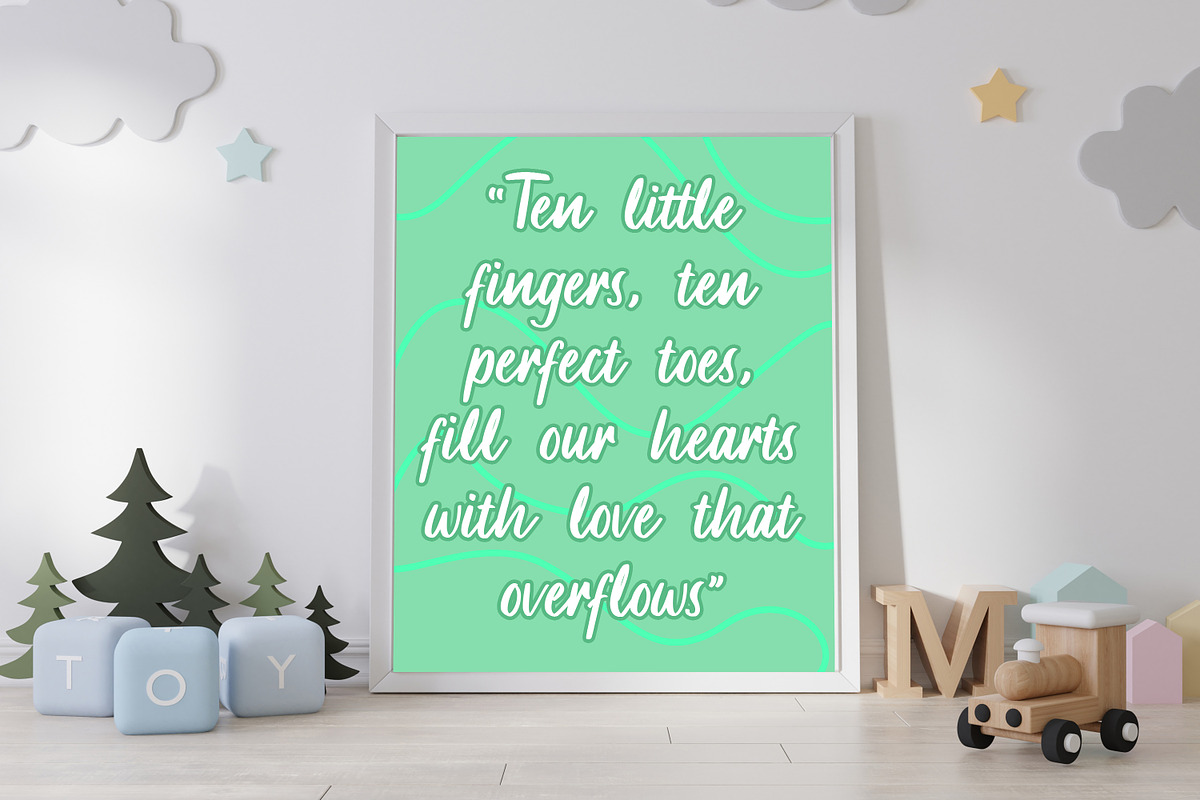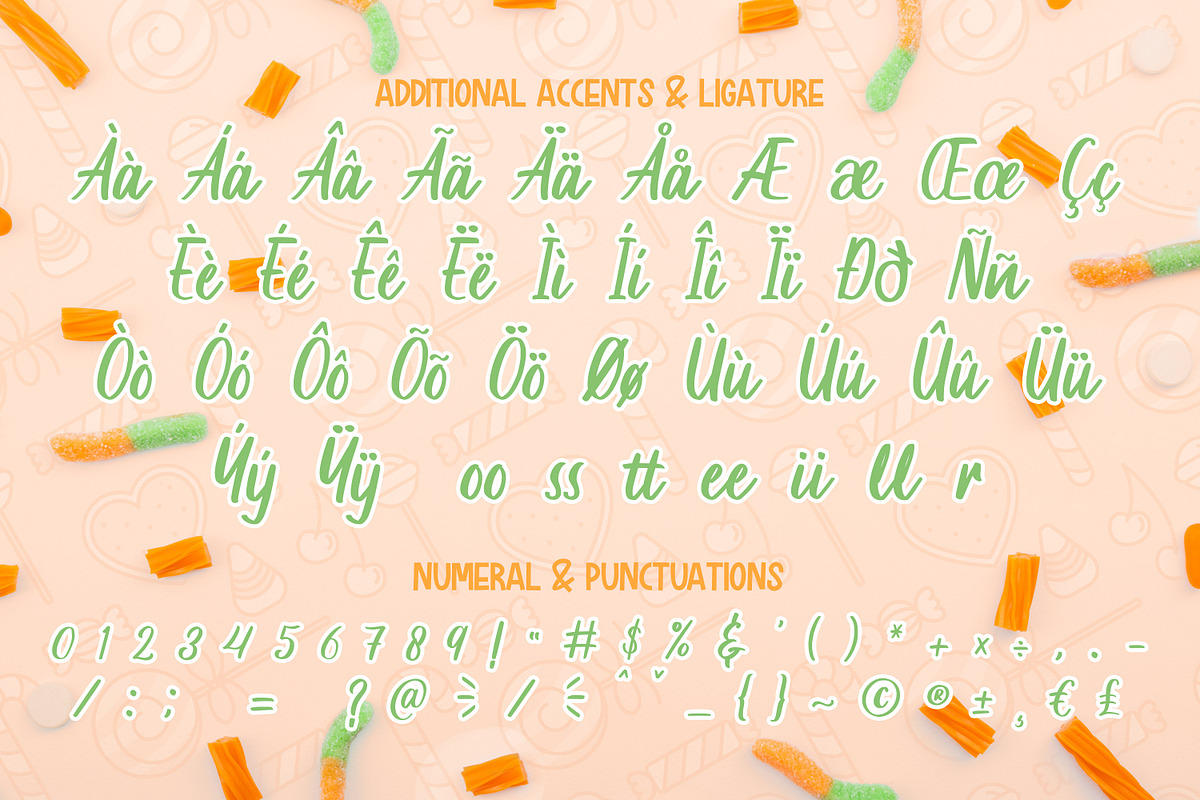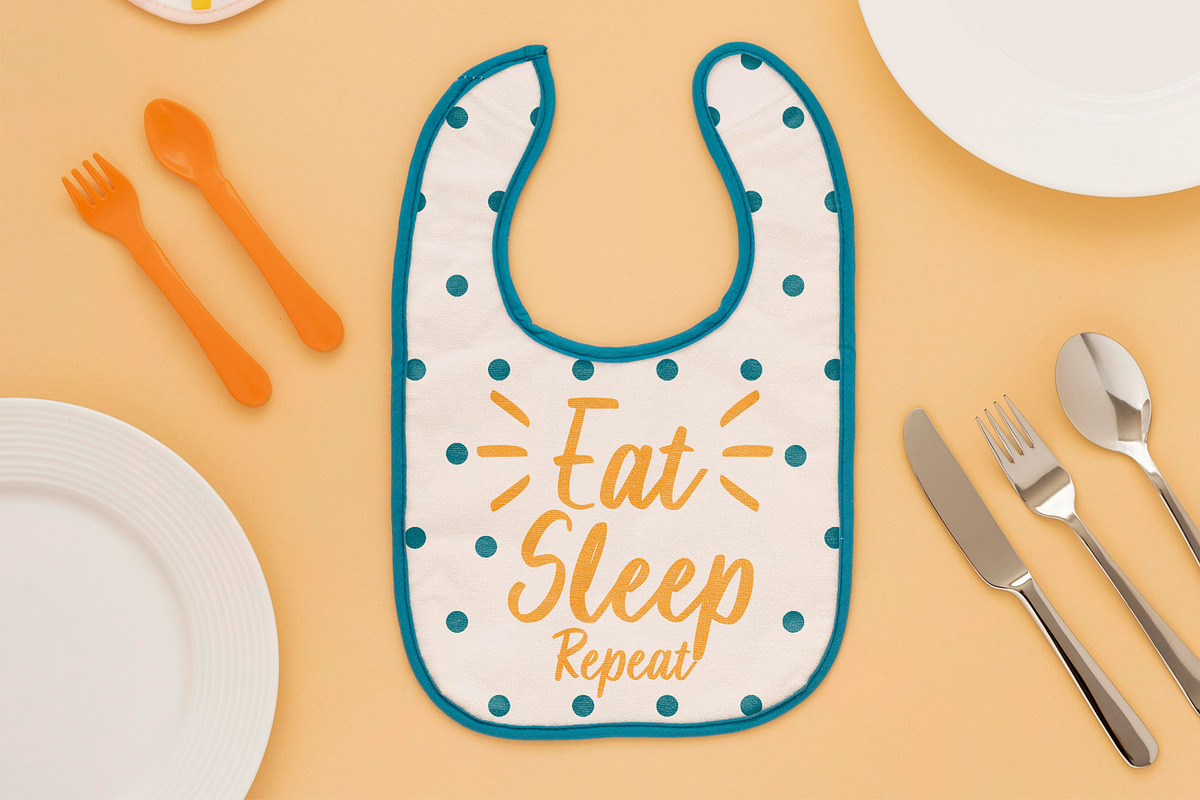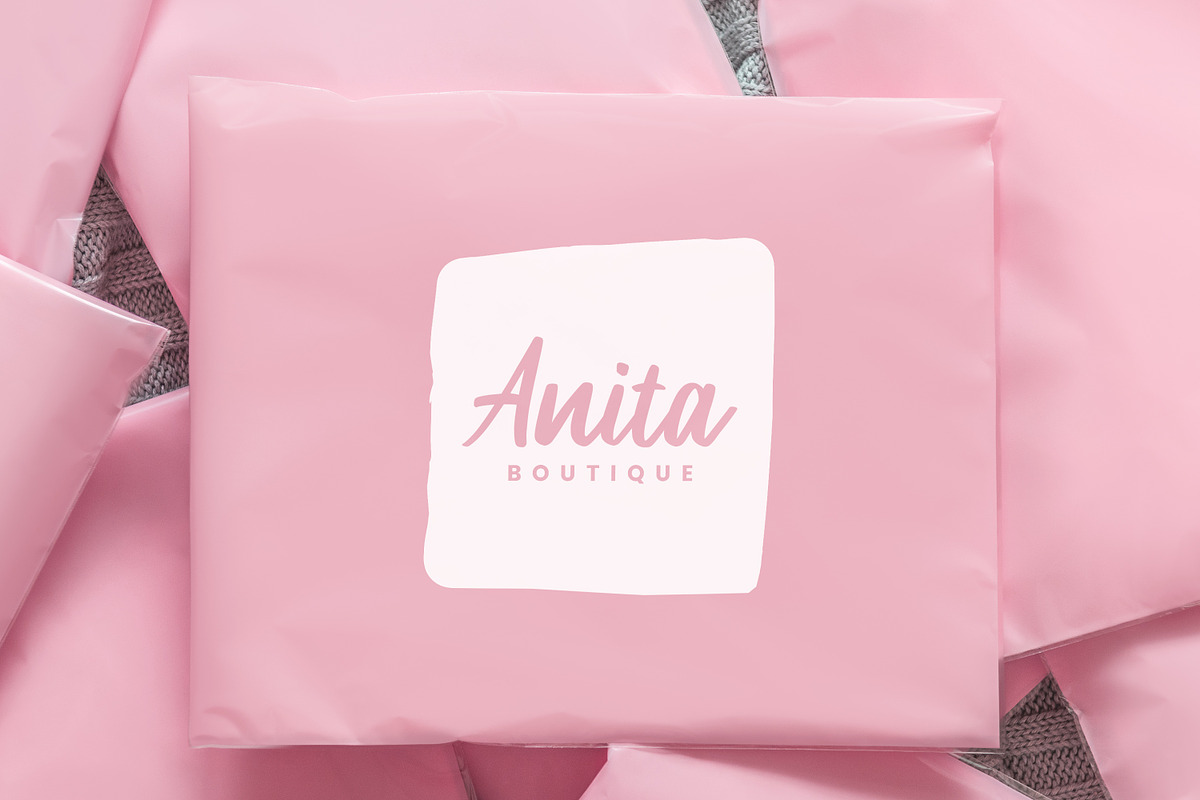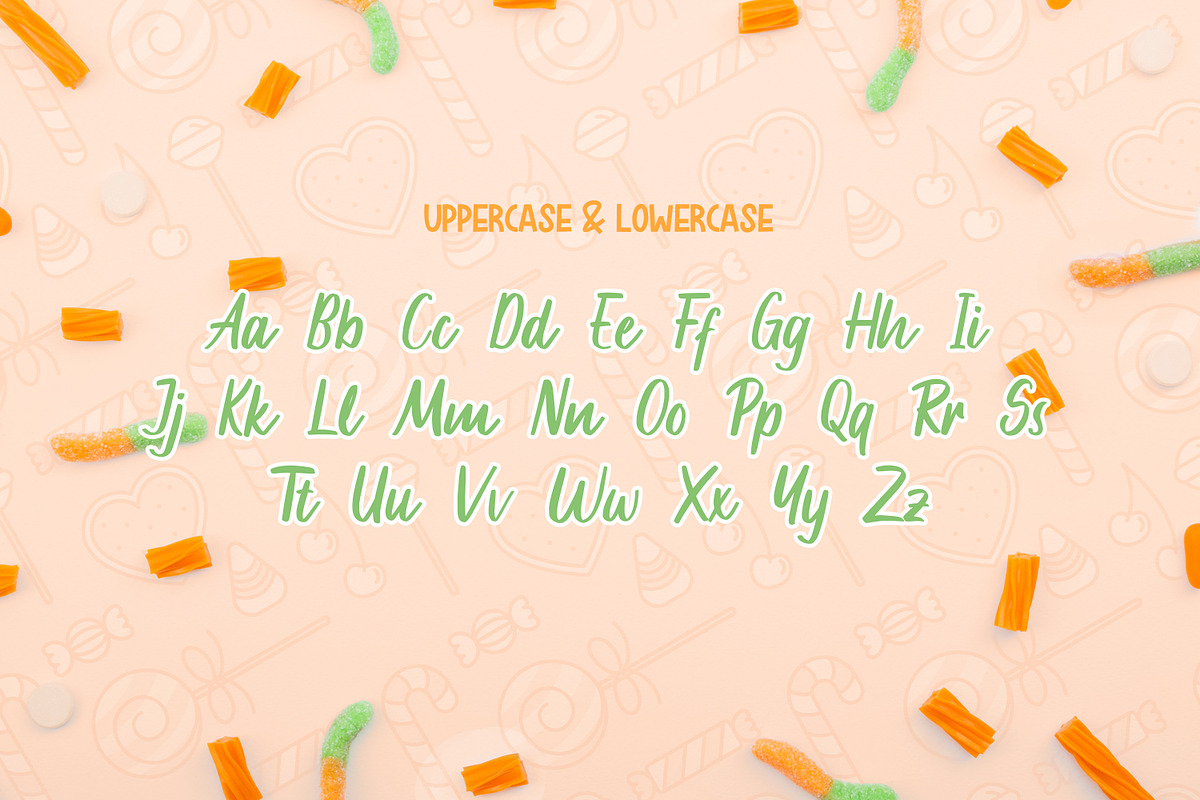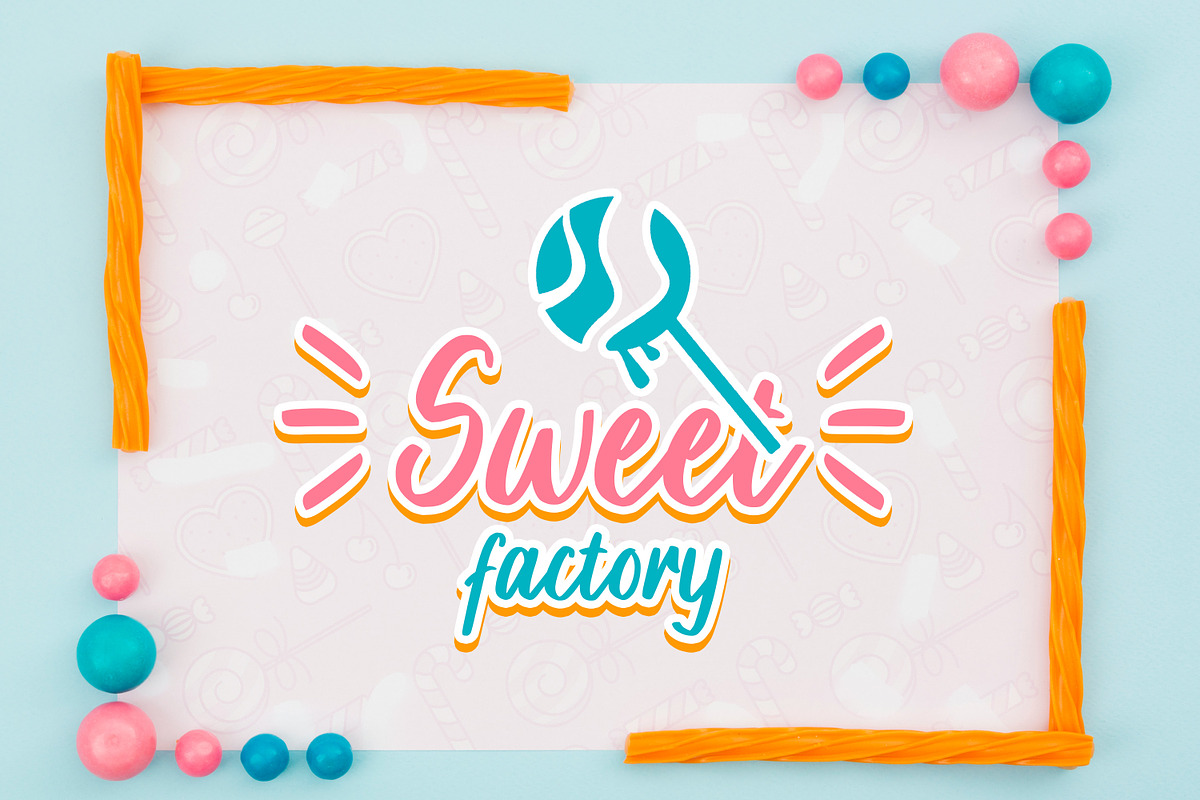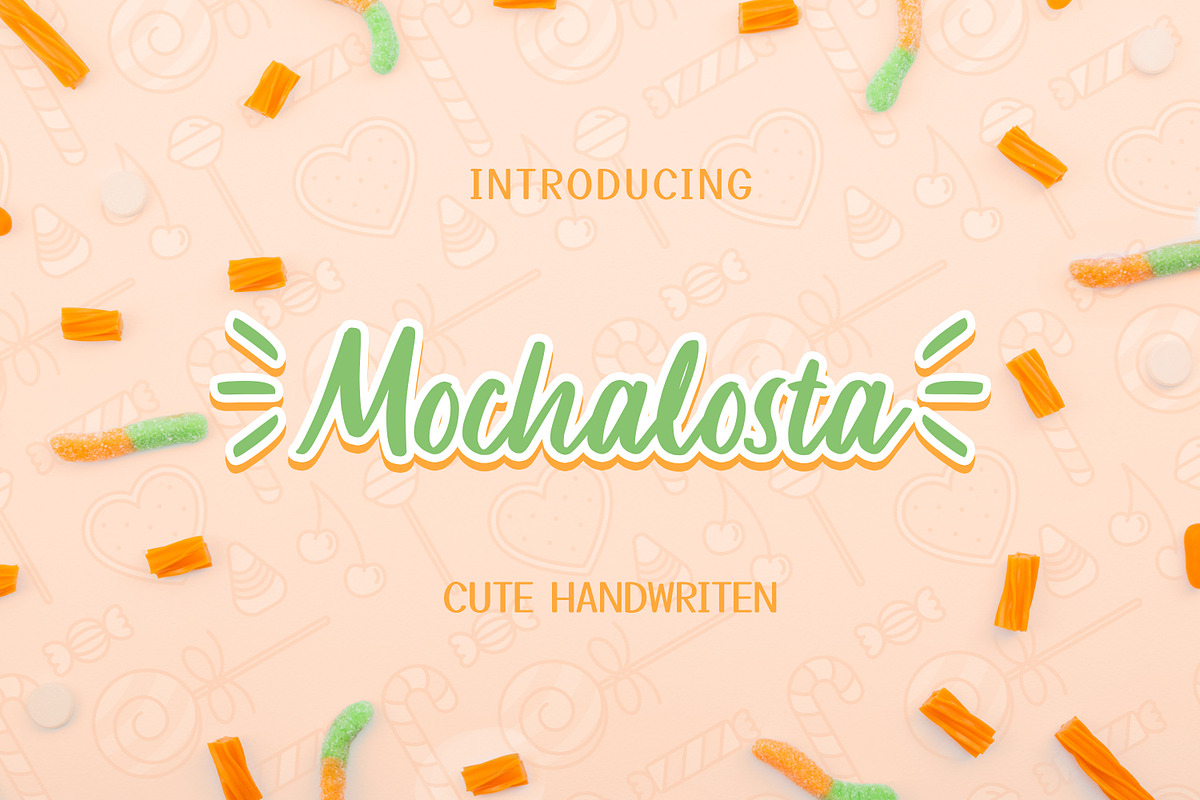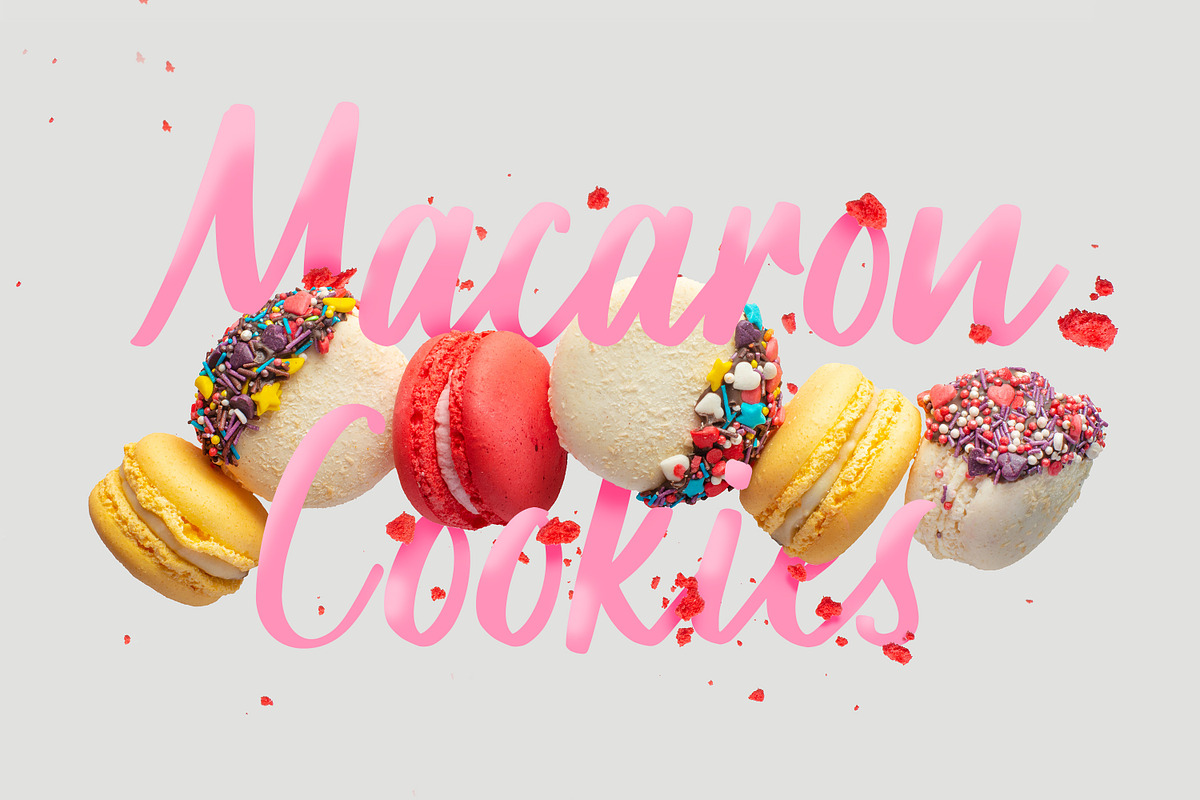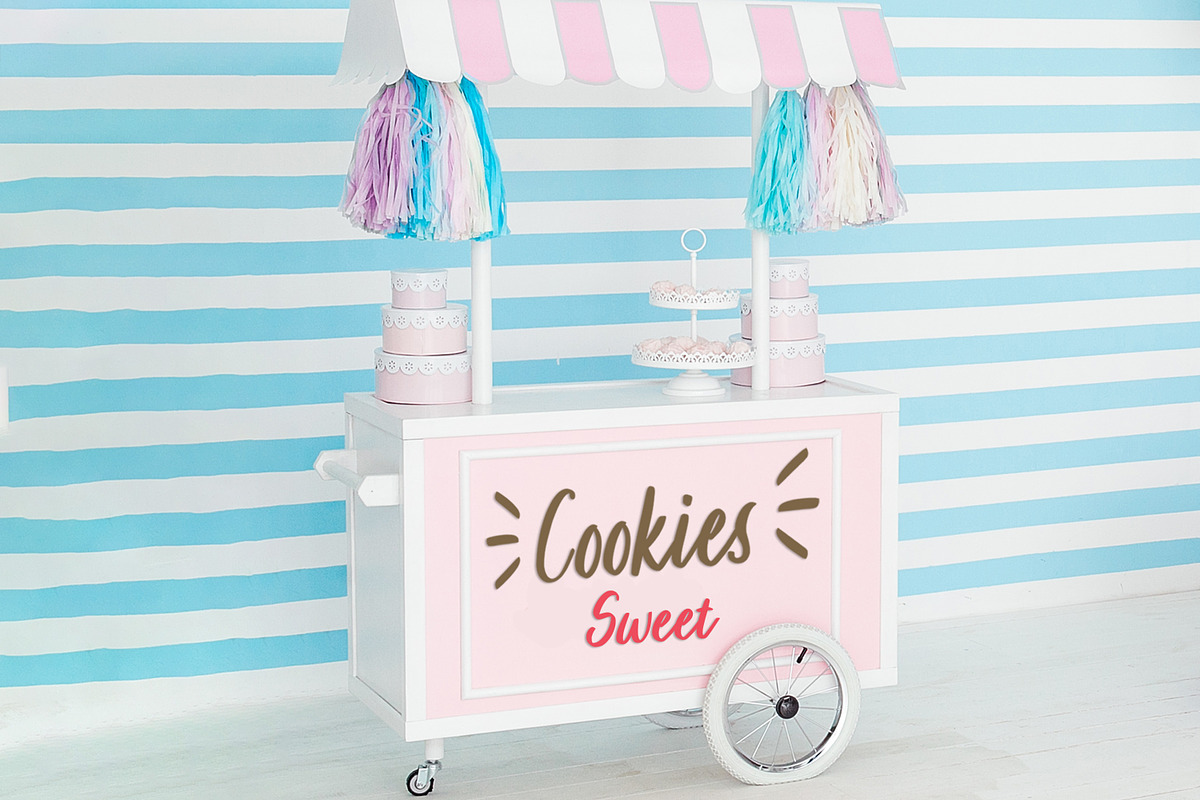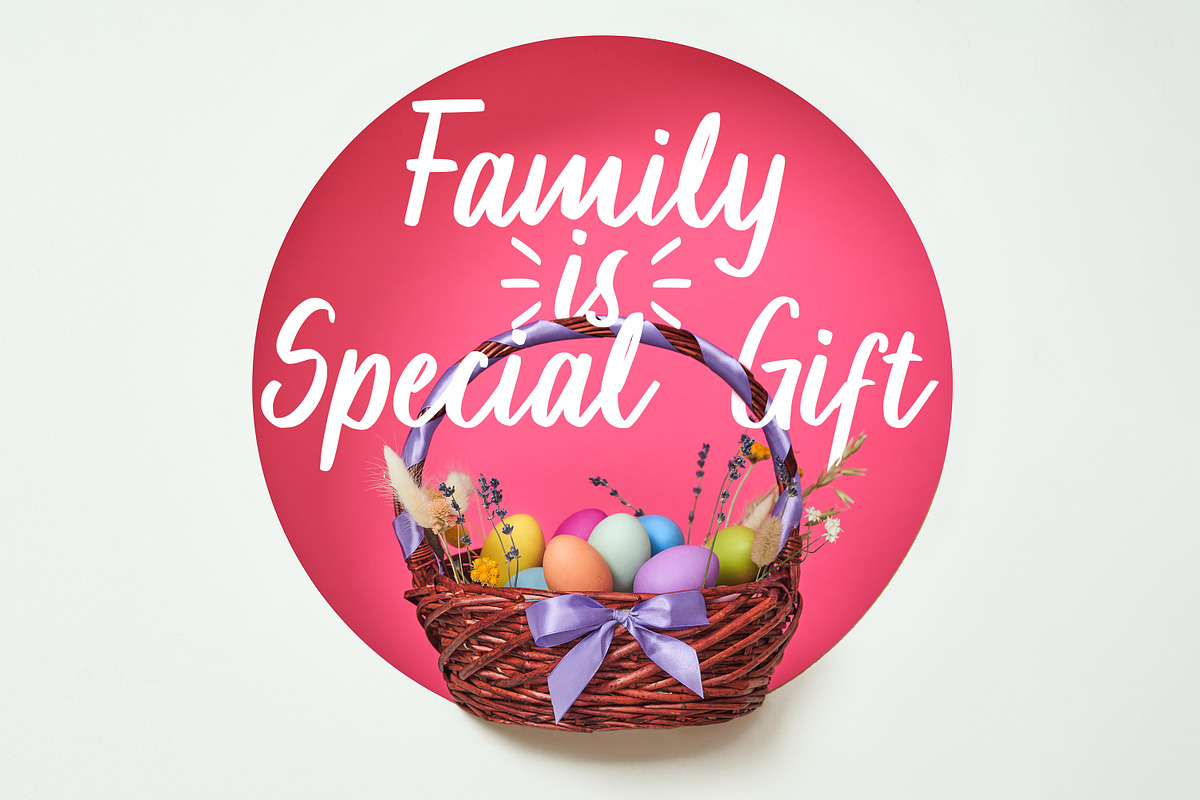
Mochalosta - Cute Handwritten
Mochalosta - Cute Handwritten font with a natural handwritten feel. This handmade font will make your design has a beautiful natural touch for each details. It is perfect for any design project as Invitation,logo, book cover, craft or any design purposes. This font is PUA encoded which means you can access all of the magical glyphs and swashes with ease! It also features a wealth of special features including alternate glyphs and ligatures. What’s Included :